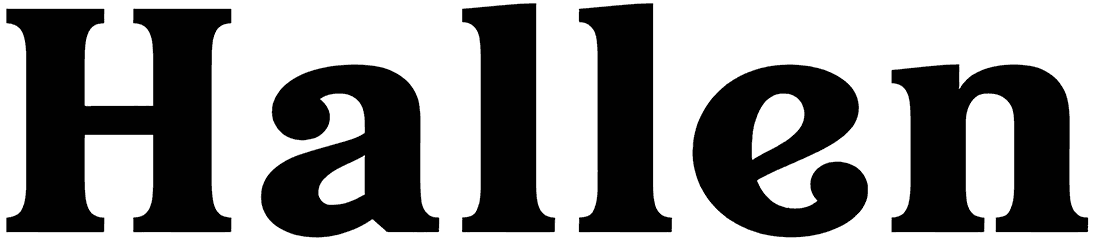
Hallen Font
If you are searching for a humble letterform to adorn the words of your layout, we offer you this serif font. The modest and classic face of Hallen font’s characters will provide you with a perfect chance to apply it to…
If you are searching for a humble letterform to adorn the words of your layout, we offer you this serif font. The modest and classic face of Hallen font’s characters will provide you with a perfect chance to apply it to any formal or informal layout. This simple font can become a part of a fashion Instagram post, a logo for an entertainment company, or so forth.